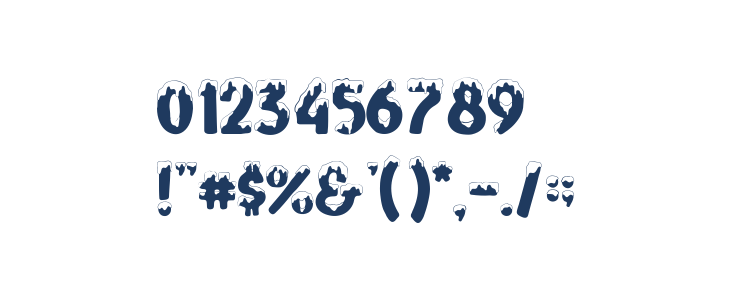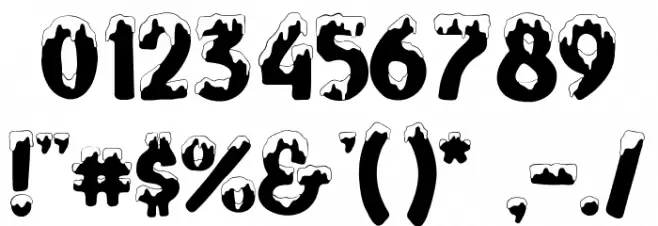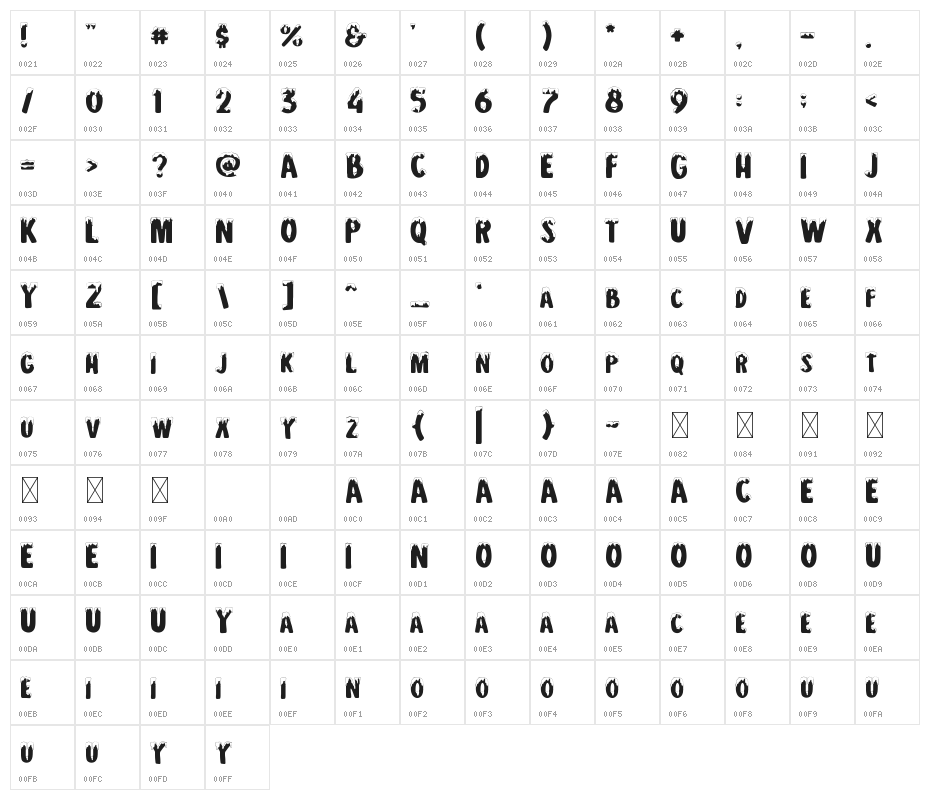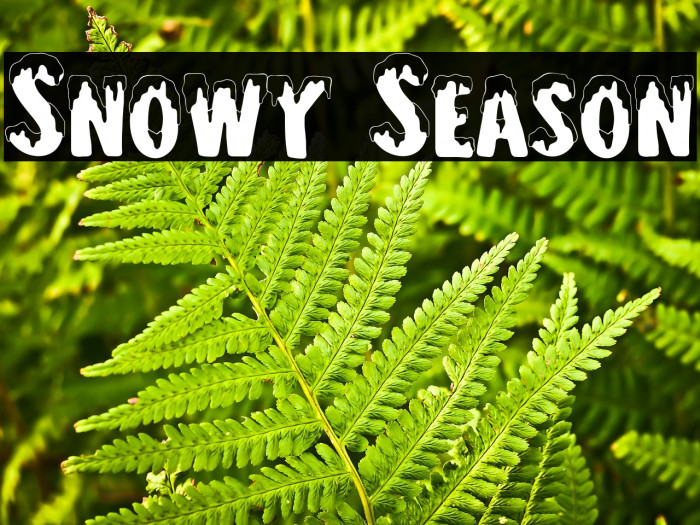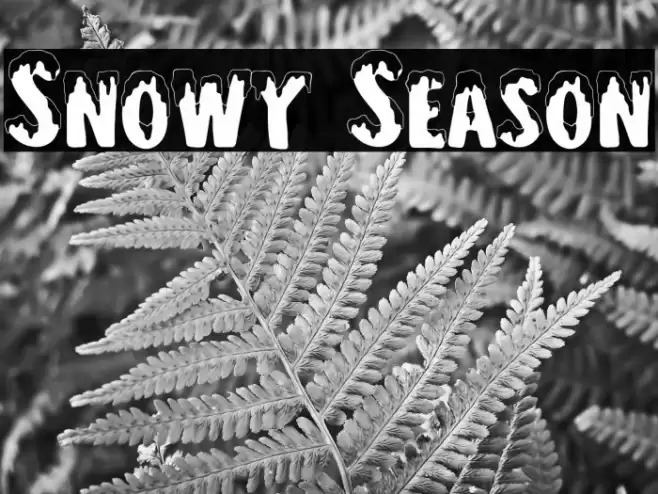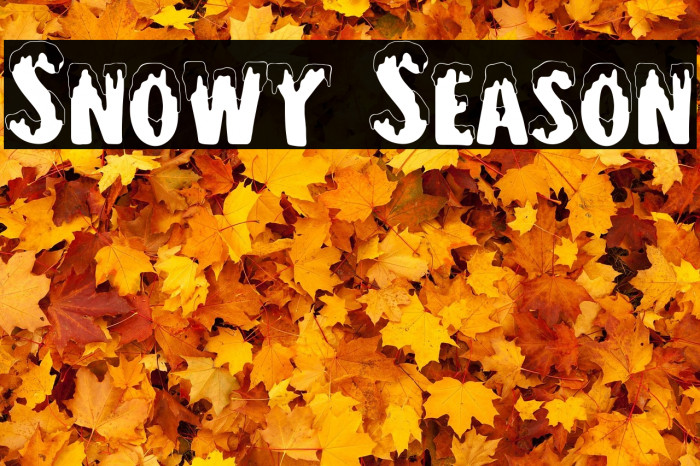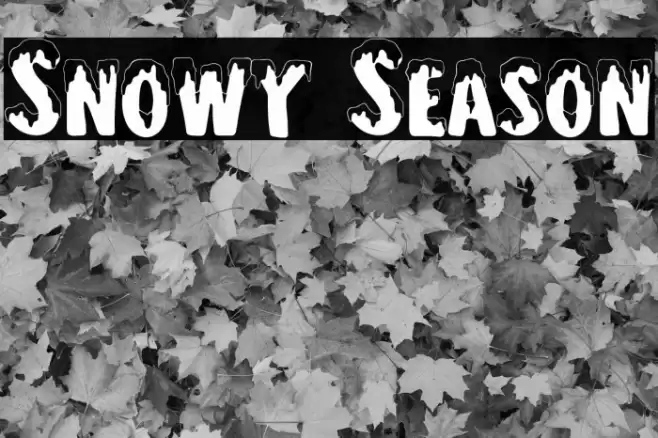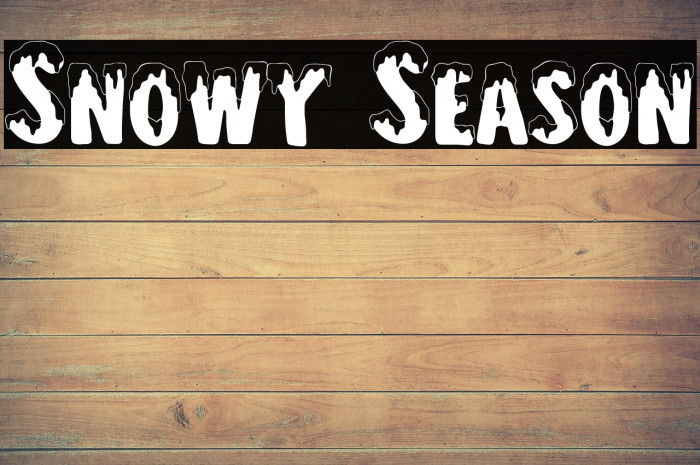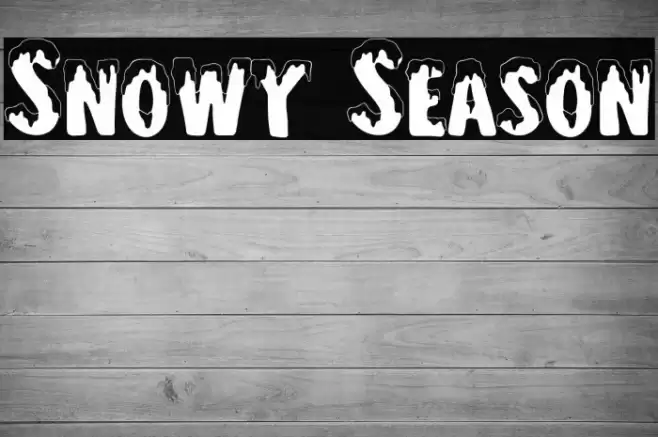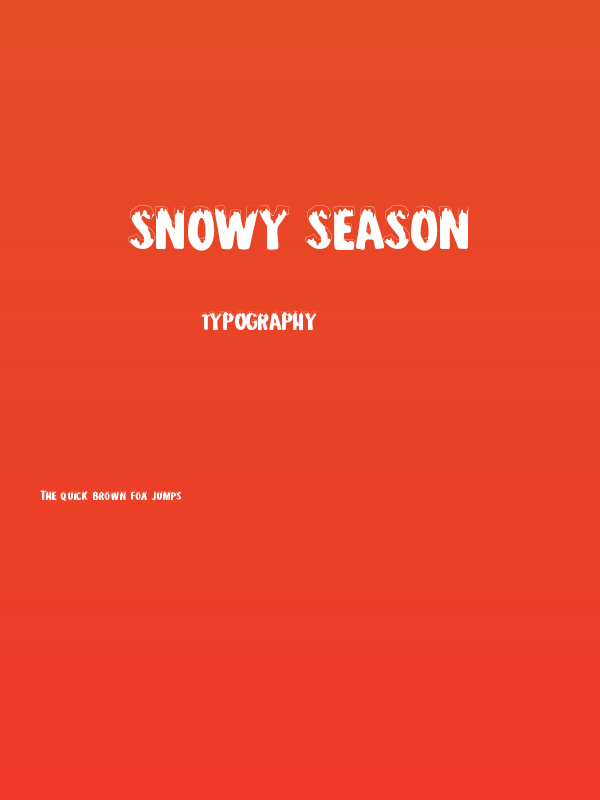
Snowy Season Font
Snowy Season Description
This playful and whimsical font features bold, uppercase and lowercase letters adorned with a snowy, frosted effect on the top, giving it a wintery, festive feel. The characters are thick and rounded, with a consistent weight throughout, making them highly legible. The numbers and special characters follow the same design, ensuring a cohesive look across all text elements. The font's unique style is perfect for capturing the essence of a snowy season, making it ideal for holiday-themed projects.
| Proposed Projects | Ideal for holiday cards, winter-themed posters, festive banners, and seasonal advertisements. |